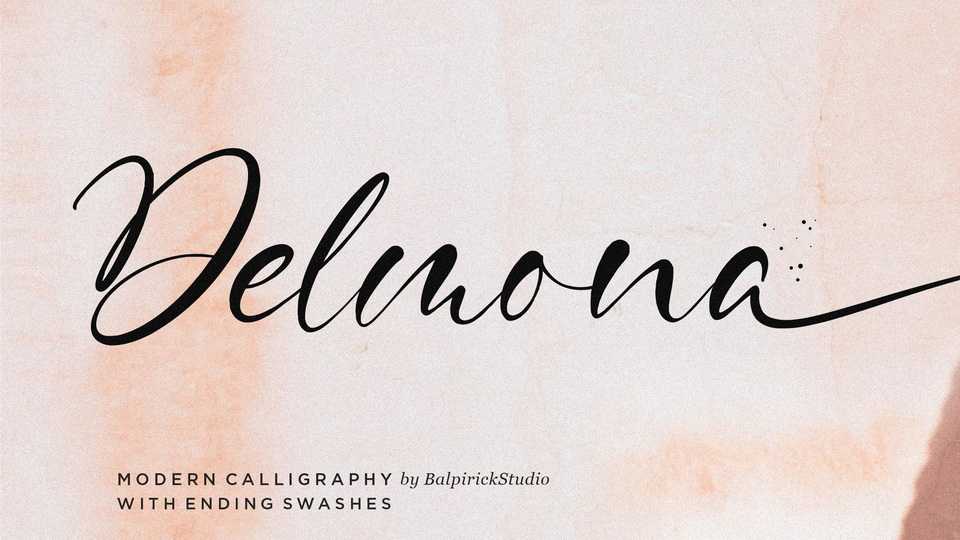
Download Delmona font, a charming modern calligraphy typeface. Delmona is perfect for branding project, magazine, social media, wedding, or just used to express words above the background.
Designer: Balpirick Studio